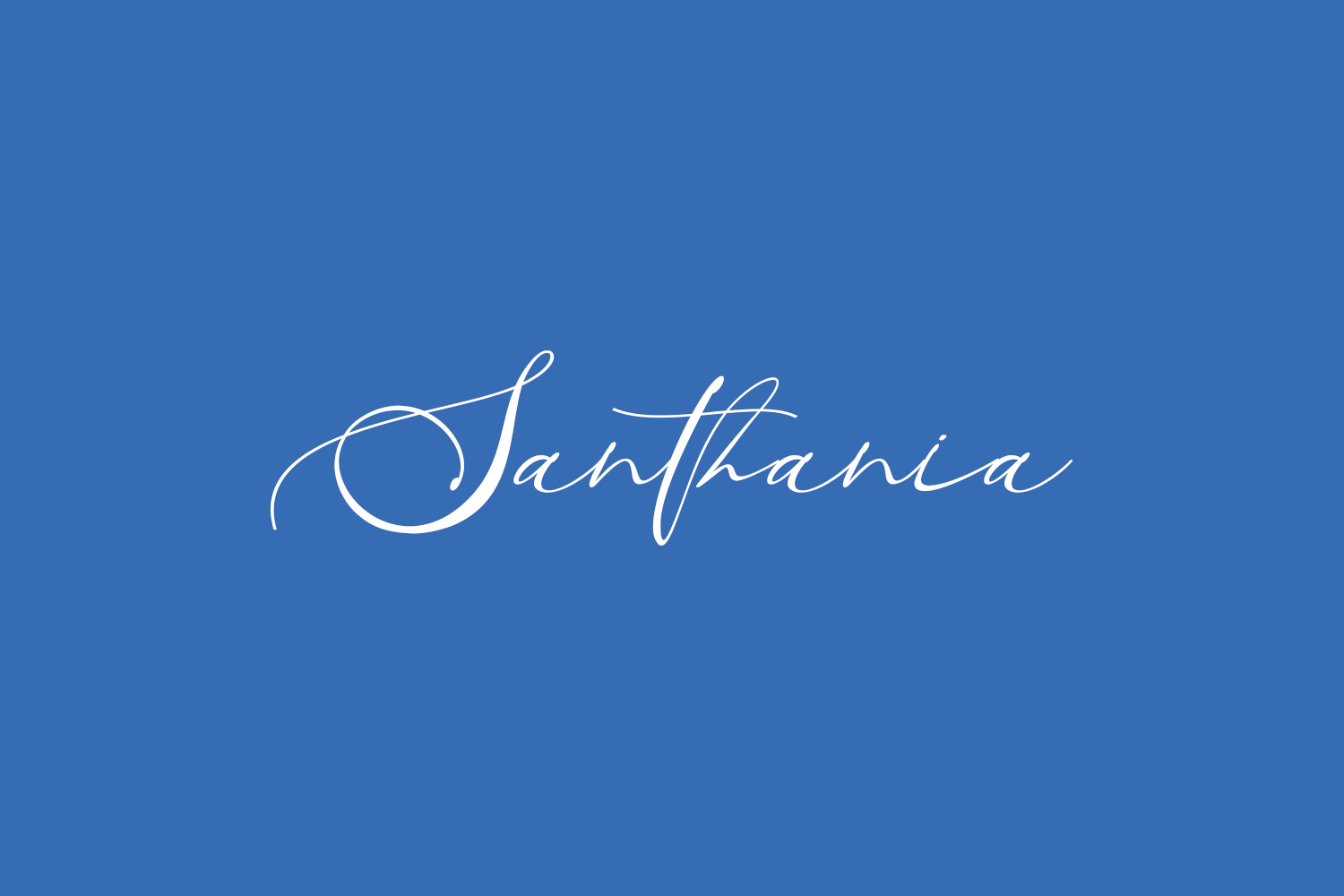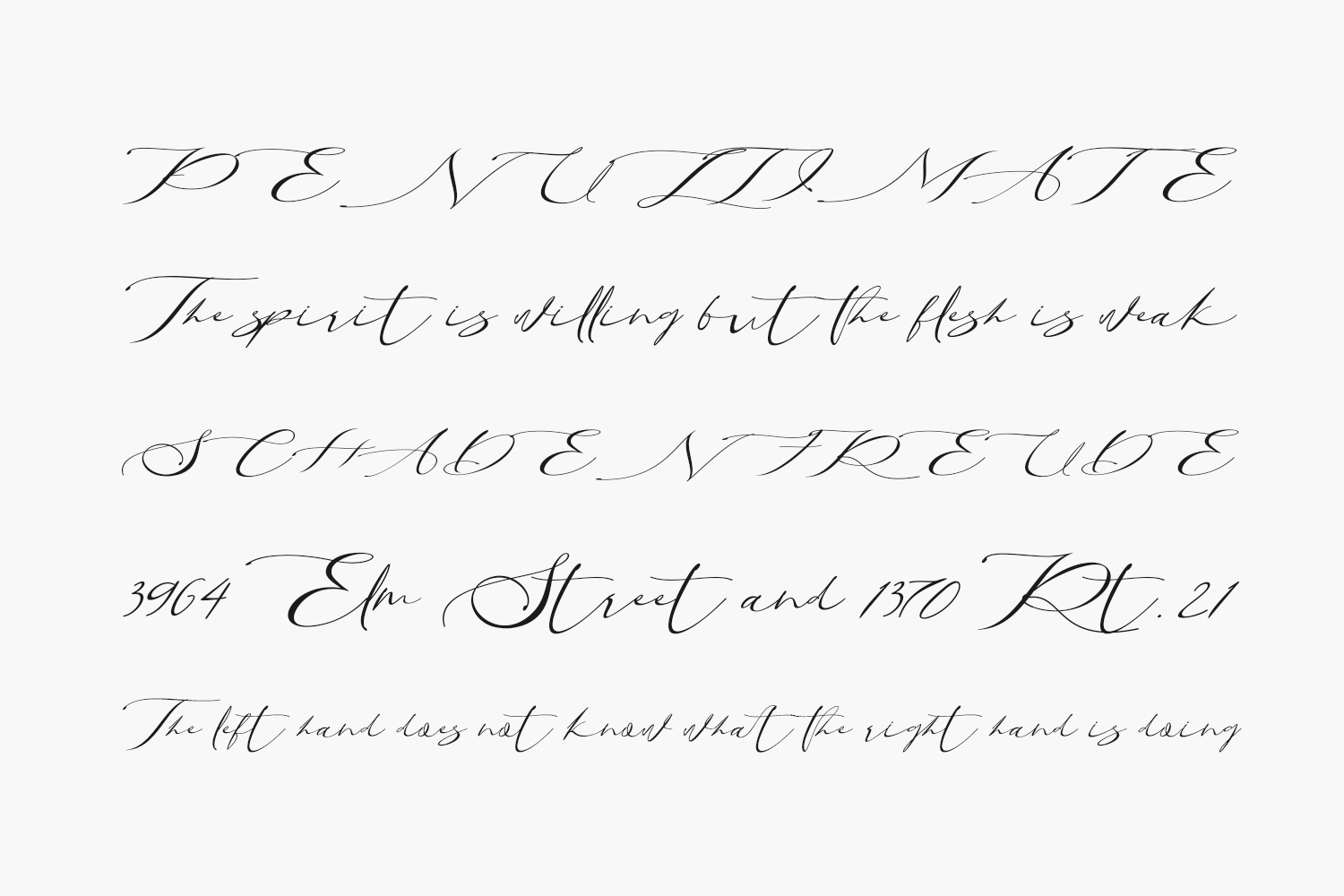
Santhania Free Font is an elegant script font with a contemporary atmosphere and impeccable form, inspired by timeless classic calligraphy.
Designed by Azkara Studio Co